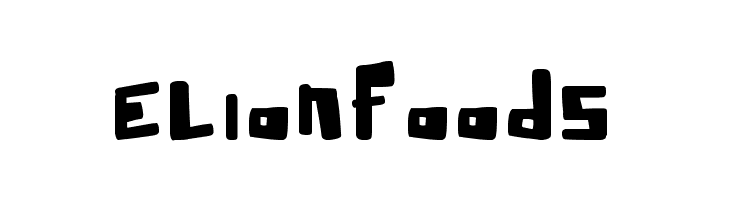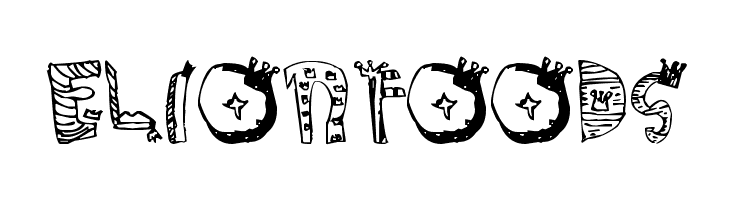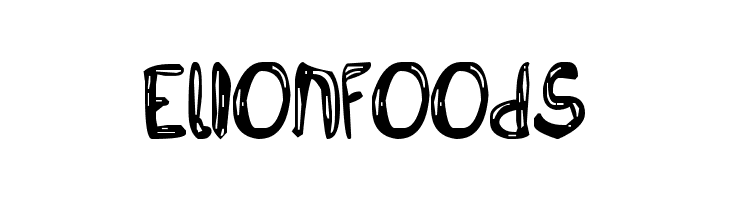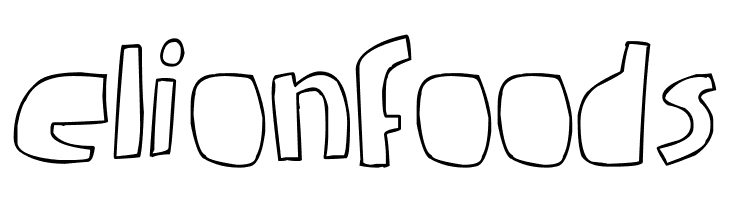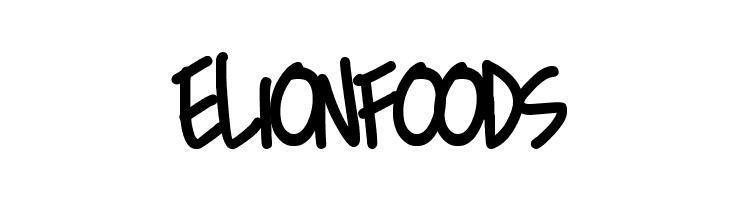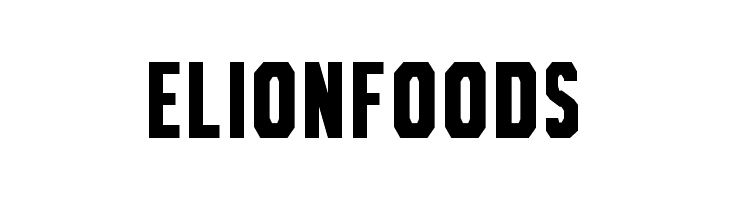
A rugged, hand-drawn font with a pirate-themed, adventurous style.
A playful, doodle-style font with whimsical decorative elements.
A playful, hand-drawn font with a whimsical, doodle-like style.
A bold, playful font with irregular, cartoonish letterforms.
A bold, playful handwritten font with a dynamic and informal style.
A playful, handwritten font with bold, rounded strokes and a casual, dynamic style.
A bold, vintage-style font with strong, uniform strokes and decorative numbers.
A playful, hand-drawn font with wavy, irregular outlines.
A bold, distressed font with a grungy, textured style.
A bold, playful font with stylized, rounded characters and a whimsical design.
A playful, grunge-style font with bold outlines and textured interiors.
A distressed, grunge-style font with a textured, hand-drawn appearance.
A bold, decorative font with a layered outline effect, offering a retro yet modern look.
A whimsical, decorative font with intricate swirls and flourishes.
A bold, distressed font with a grunge aesthetic and rugged texture.
A grungy, distressed font with an uneven, chaotic style.
A bold, distressed font with a vintage, grunge aesthetic.
A bold, playful font with a hand-drawn, graffiti-like style.
A bold, decorative serif font with grunge and distressed effects.